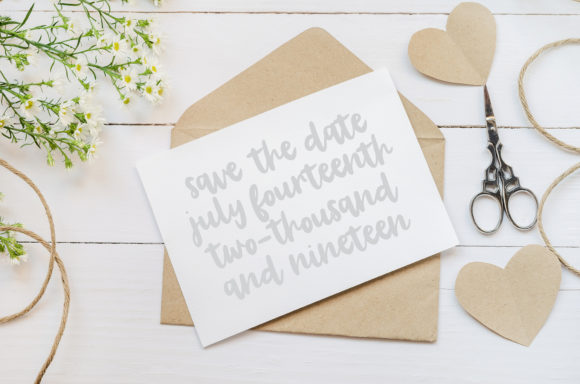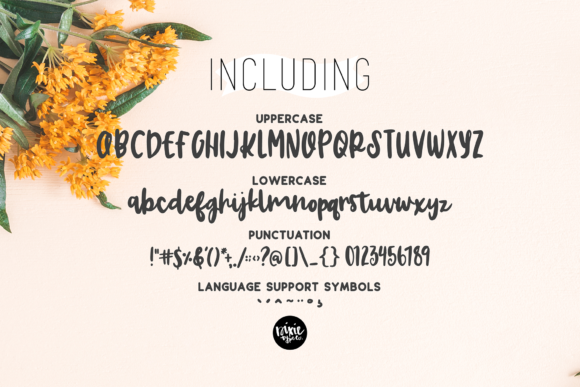
Introducing Charlotte Brush Font: The Perfect Handwritten Font for DIY Projects
Are you a designer or crafter looking for a unique and authentic handwritten font to bring your DIY projects to life? Look no further than the Charlotte Brush Font. This stunning font is the result of a beautiful pairing of a brush pen and pencil, giving it an endearing and genuine feel that’s sure to capture the hearts of your audience.
The Story Behind Charlotte Brush Font
The Charlotte Brush Font is a one-of-a-kind handwritten font that has been carefully crafted to resemble the imperfect, yet charming strokes of a brush pen and pencil. The font’s creator has skillfully combined the fluidity of a brush pen with the precision of a pencil to produce a font that is both elegant and rustic.
The result is a font that looks like it was written with love and care, making it perfect for DIY projects, crafts, and other creative endeavors. Whether you’re working on a handmade card, a scrapbook, or a piece of artwork, the Charlotte Brush Font is sure to add a touch of warmth and personality to your project.
What Makes Charlotte Brush Font So Special?
So, what sets the Charlotte Brush Font apart from other handwritten fonts? Here are just a few reasons why this font is a cut above the rest:
- Unique pairing of brush pen and pencil: The combination of a brush pen and pencil gives the Charlotte Brush Font its distinctive look and feel.
- Handwritten with love and care: The font’s creator has poured their heart and soul into crafting a font that looks like it was written with love and care.
- Perfect for DIY projects: The Charlotte Brush Font is ideal for DIY projects, crafts, and other creative endeavors where a personal touch is desired.
- Elegant and rustic: The font’s elegant and rustic feel makes it perfect for a wide range of projects, from handmade cards to scrapbooking.
How to Use Charlotte Brush Font in Your DIY Projects
Using the Charlotte Brush Font in your DIY projects is easy. Here are a few ways you can incorporate this beautiful font into your creative endeavors:
- Handmade cards: Add a personal touch to your handmade cards with the Charlotte Brush Font.
- Scrapbooking: Use the font to add captions and journaling to your scrapbook pages.
- Artwork: Incorporate the font into your artwork, such as illustrations, paintings, and mixed media projects.
- Crafting: Use the font to add labels, tags, and other embellishments to your craft projects.
Tips for Getting the Most Out of Charlotte Brush Font
Here are a few tips for getting the most out of the Charlotte Brush Font:
- Experiment with different colors: Try pairing the font with different colors and textures to add depth and interest to your projects.
- Mix and match with other fonts: Combine the Charlotte Brush Font with other fonts to create a unique and eye-catching look.
- Use it sparingly: Use the font sparingly to add a touch of elegance and sophistication to your projects.
| Font Name | Charlotte Brush Font |
| Author | blushfontco |
In conclusion, the Charlotte Brush Font is a beautiful and unique handwritten font that’s perfect for DIY projects, crafts, and other creative endeavors. Its stunning pairing of a brush pen and pencil gives it an endearing and authentic feel that’s sure to capture the hearts of your audience. With its elegant and rustic feel, this font is sure to bring a touch of warmth and personality to any project. So why wait? Download the Charlotte Brush Font today and start bringing your DIY projects to life!